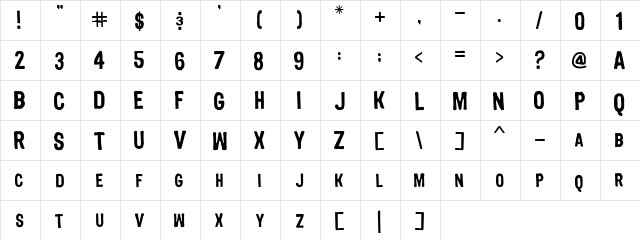
SM_bournisM Regular
| Foundry | Dan Meyer (smashmethod) |
| Designer | Dan Meyer (smashmethod) |
Design Context for SM_bournisM Typeface
SM_bournisM takes a measured approach to typography — its balanced proportions and neutral character make it a reliable workhorse for both digital and print work.